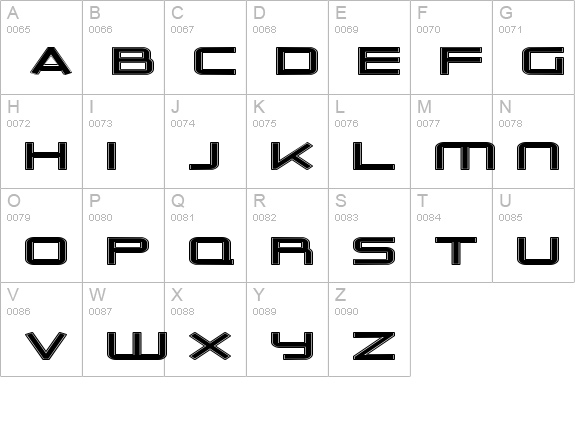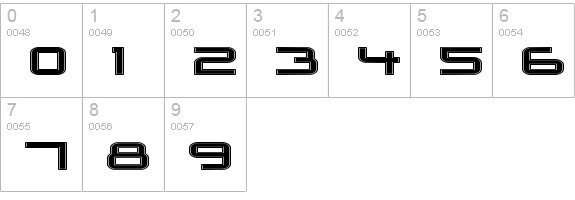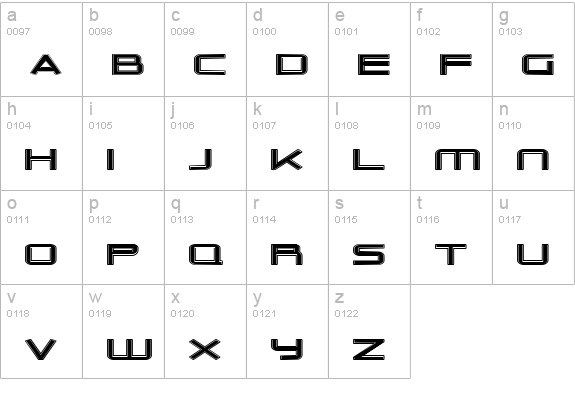
Outer Limits Extended is a distinctive, extended-width variant in the Outer typeface family \xE2\x80\x94 well suited to design and typography projects.
Outer Limits Extended is a bold and attention-grabbing display font that pushes the boundaries of creativity and design. With its futuristic and edgy style, this font is perfect for any project that requires a modern and impactful look. The elongated letterforms give a sense of movement and energy, making it ideal for posters, headlines, logos, and more. What's even better is that Outer Limits Extended is available for free download at FontsMarket.com. This means you can easily access this unique and eye-catching font to enhance your projects without any cost. Don't miss out on the opportunity to add a touch of innovation and sophistication to your designs with Outer Limits Extended. Download it today and let your creativity soar to new heights!